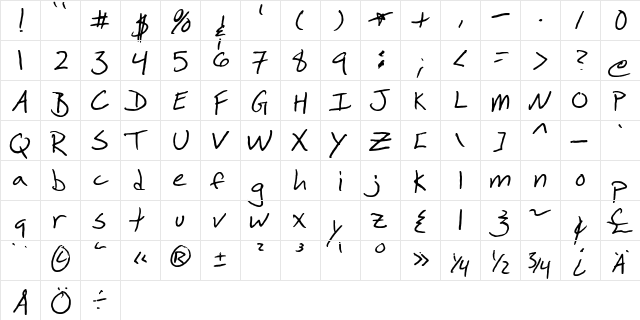
FG Adrian Regular
Design Context for FG Adrian Typeface
FG Adrian is a composed and adaptable typeface that performs quietly and consistently across a wide range of design contexts.